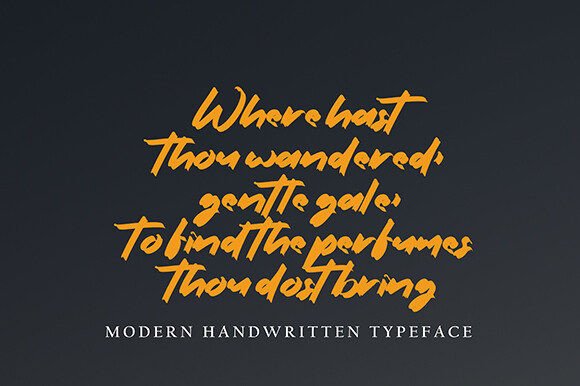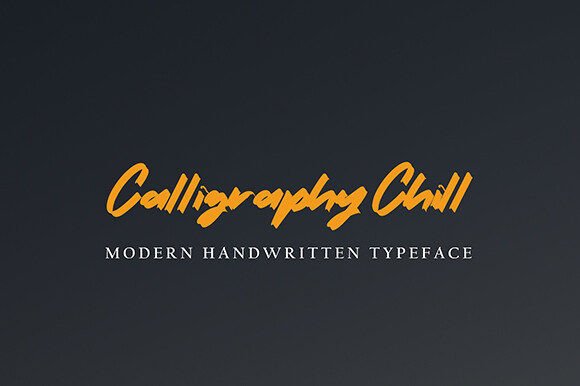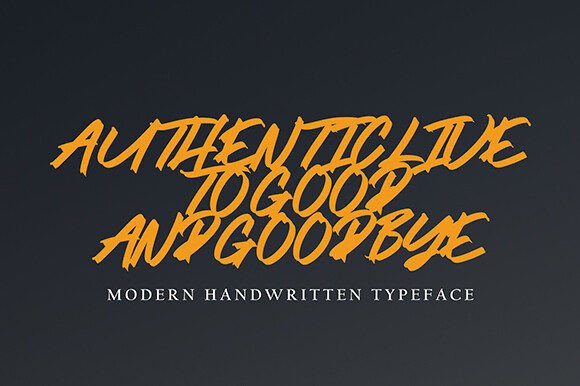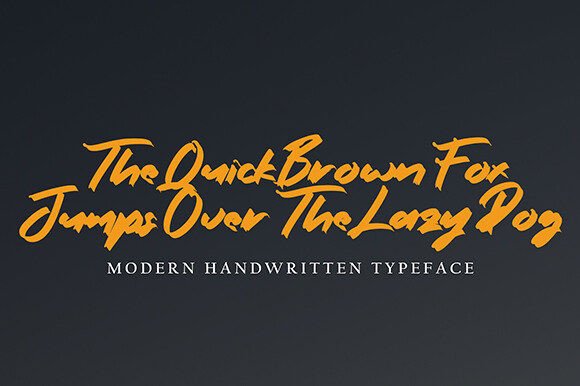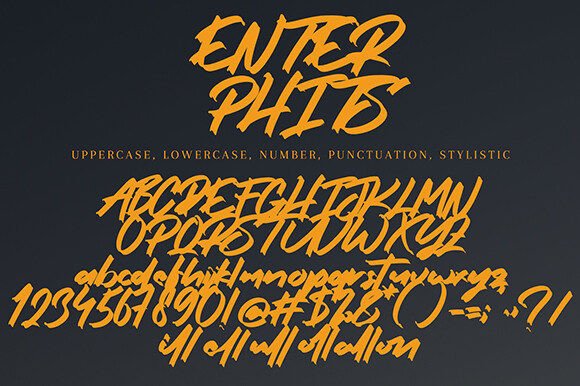
Introducing Enter Phits Font: Unleash Your Creativity with this Bold and Quirky Typeface
Are you tired of using the same old fonts in your designs? Look no further! Enter Phits font is here to shake things up with its bold and delightfully messy handwritten style. This expressive and free-flowing typeface is perfect for designers and crafters who want to add a touch of spontaneity and personality to their work.
The Perfect Font for Creative Projects
Enter Phits font is ideal for making a statement or adding a casual vibe to posters, branding, and creative projects. Its unique and quirky style injects a burst of energy into your text, making it perfect for designers who want to stand out from the crowd. Whether you’re working on a logo, brochure, or social media graphics, Enter Phits font is sure to add a touch of personality to your design.
What Makes Enter Phits Font Special?
So, what sets Enter Phits font apart from other typefaces? Here are a few features that make it a must-have for designers and crafters:
• Bold and Expressive: Enter Phits font is a bold and expressive typeface that’s perfect for making a statement. Its thick and confident strokes add a touch of drama to your text.
• Delightfully Messy: This font has a delightfully messy and handwritten feel that’s perfect for adding a touch of whimsy to your designs.
• Pair it with a Simple Font: Enter Phits font is bold and expressive, so it’s best paired with a simple font that won’t compete with it. Try pairing it with a clean sans-serif font for a striking contrast.
• Use it for Headings: Enter Phits font is perfect for headings and titles, where its bold and expressive style can really shine.
• Experiment with Colors: Enter Phits font looks great in bold and bright colors, so don’t be afraid to experiment with different hues and shades.
Why Designers and Crafters Love Enter Phits Font
Designers and crafters love Enter Phits font for its unique and quirky style. Here are a few reasons why:
• Adds Personality to Designs: Enter Phits font adds a touch of personality to designs, making them stand out from the crowd.
• Perfect for Branding: This font is perfect for branding projects, where its bold and expressive style can help to create a memorable and recognizable identity.
• Easy to Use: Enter Phits font is easy to use and customize, making it a great choice for designers and crafters of all levels.
Enter Phits font is a bold and delightfully messy handwritten typeface that’s perfect for designers and crafters who want to add a touch of spontaneity and personality to their work. With its expressive and free-flowing strokes, PUA encoding, and bold and quirky style, this font is sure to inject a burst of energy into your text. So why not give it a try and see how it can elevate your designs?
Whether you’re working on a logo, brochure, or social media graphics, Enter Phits font is a great choice. Its unique and quirky style makes it perfect for making a statement or adding a casual vibe to your designs. So go ahead, unleash your creativity, and see what amazing things you can create with Enter Phits font!